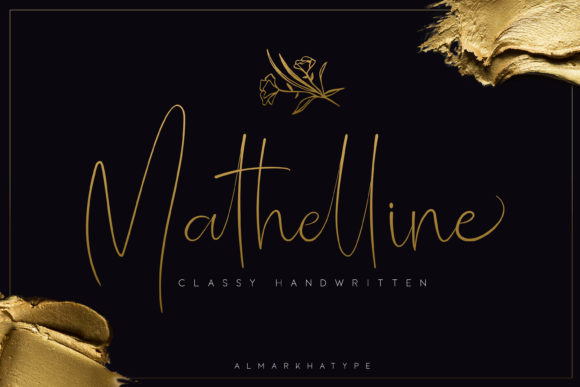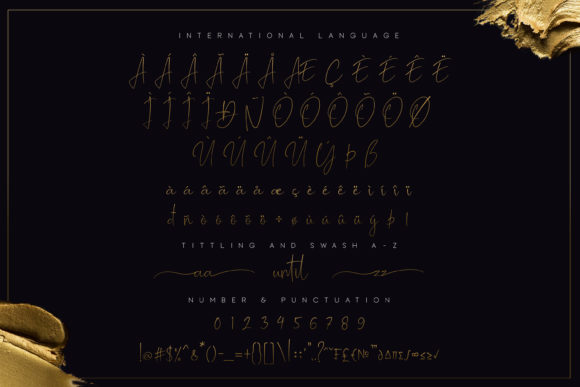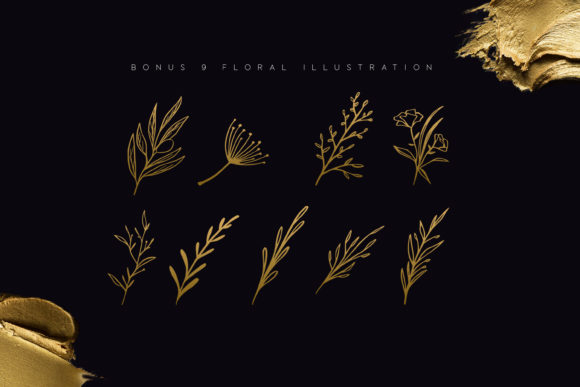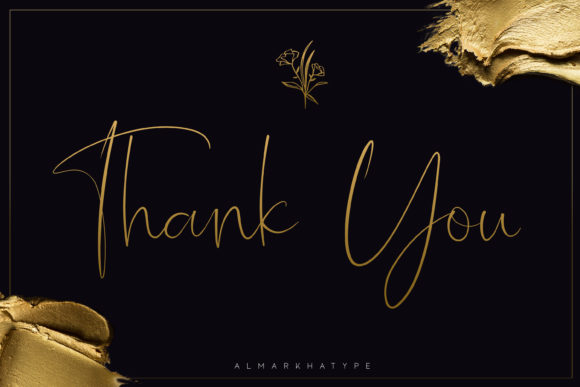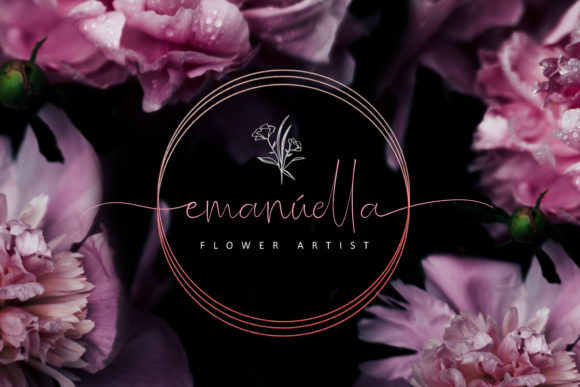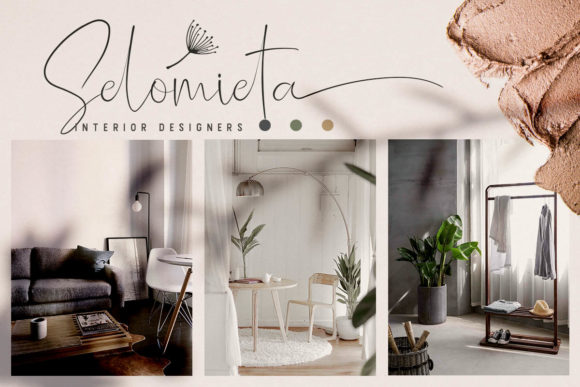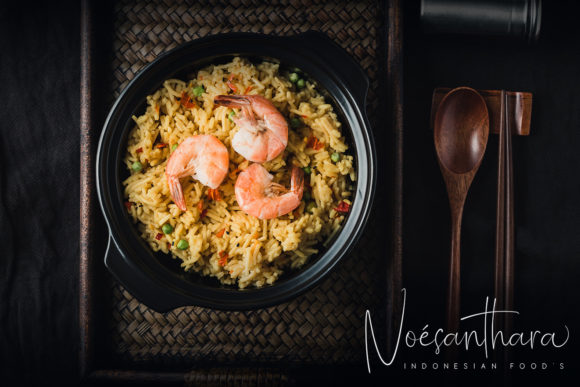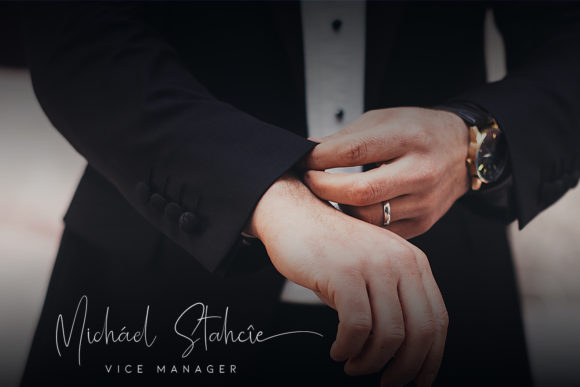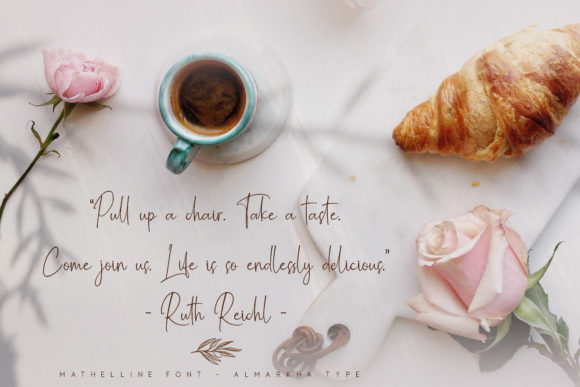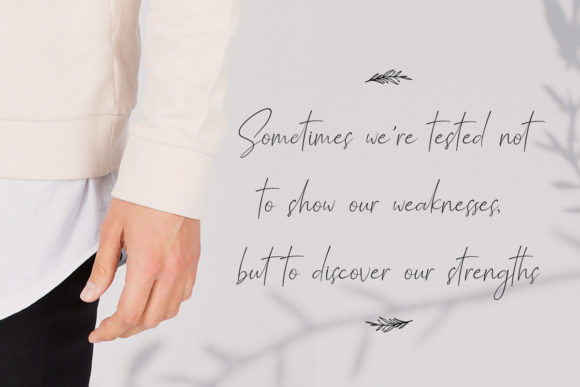
HomeScript FontsMathelline Font Script Fonts Mathelline Font FacebookXPinterestWhatsApp Mathelline Font Poster 2 Mathelline Font Poster 3 Mathelline Font Poster 4 Mathelline Font Poster 5 Mathelline Font Poster 6 Mathelline Font Poster 7 Mathelline Font Poster 8 Mathelline Font Poster 9 Mathelline Font Poster 10 Mathelline Font Poster 11 Mathelline Font Poster 12 About Mathelline Font Mathelline is a classy script font with a luxurious feel. It will put a sophisticated spark to any design idea! DOWNLOAD ON CREATIVE FABRICAThis font is sold and delivered by Creative Fabrica. Font Canyon may earn a commission if you buy through this link. People also explored Vintage Reclame Font Obellia Script Font Aiden Font Sambina Font Mindyneelo Font Humaira Font Gricis Font Wincent Medium Font Pretium Font 339 0 TagsMathelline Font Previous articleGabryna FontNext articleRamayana Font LEAVE A REPLY Cancel reply Comment: Please enter your comment! Name:* Please enter your name here Email:* You have entered an incorrect email address! Please enter your email address here Website: Save my name, email, and website in this browser for the next time I comment. Personal Use Free Helsinki Personal Use Free Read more about this font Rakesly Personal Use Free Read more about this font Jabirah Personal Use Free Read more about this font Namskow Personal Use Free Read more about this font BLOG Free Fonts Risk: Why Free Fonts Can Be Dangerous for Designers Free Fonts Risk: Why Free Fonts Can Be Dangerous for Designers Using free fonts is a common practice in web and graphic design. However, the... Fonts That Capture the Spirit of New York City Best Fonts for YouTube Videos: Make Your Thumbnails Stand Out Top 10 Handwritten Fonts That Elevate Your Designs